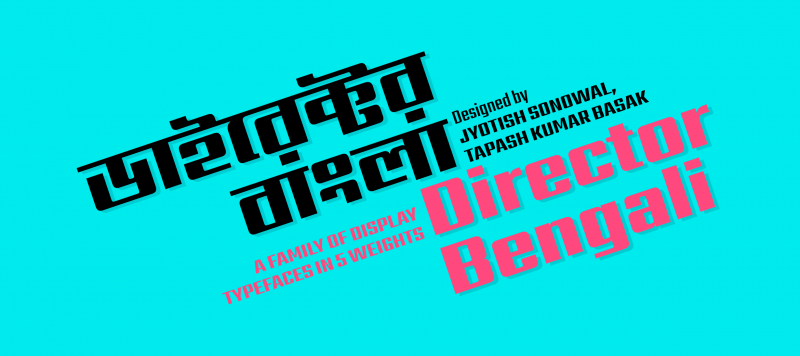
Director Bengali is a display type family with a minimalistic appearance and squared style. Across each of the family’s five fonts, all of the horizontal strokes share a consistent thickness, while the vertical strokes grow thicker in each new weight. So Director Bengali Regular’s strokes are almost monolinear, but Director Bengali’s heavy weight sports letters with very severe stroke contrast. Each font includes 478 glyphs, offering full support for conjuncts and ligatures required in Bengali.
Family Name | Director Bengali |
Designer(s) | Jyotish Sonowal, Tapash Kumar Basak |
Classification | Sans, Display |